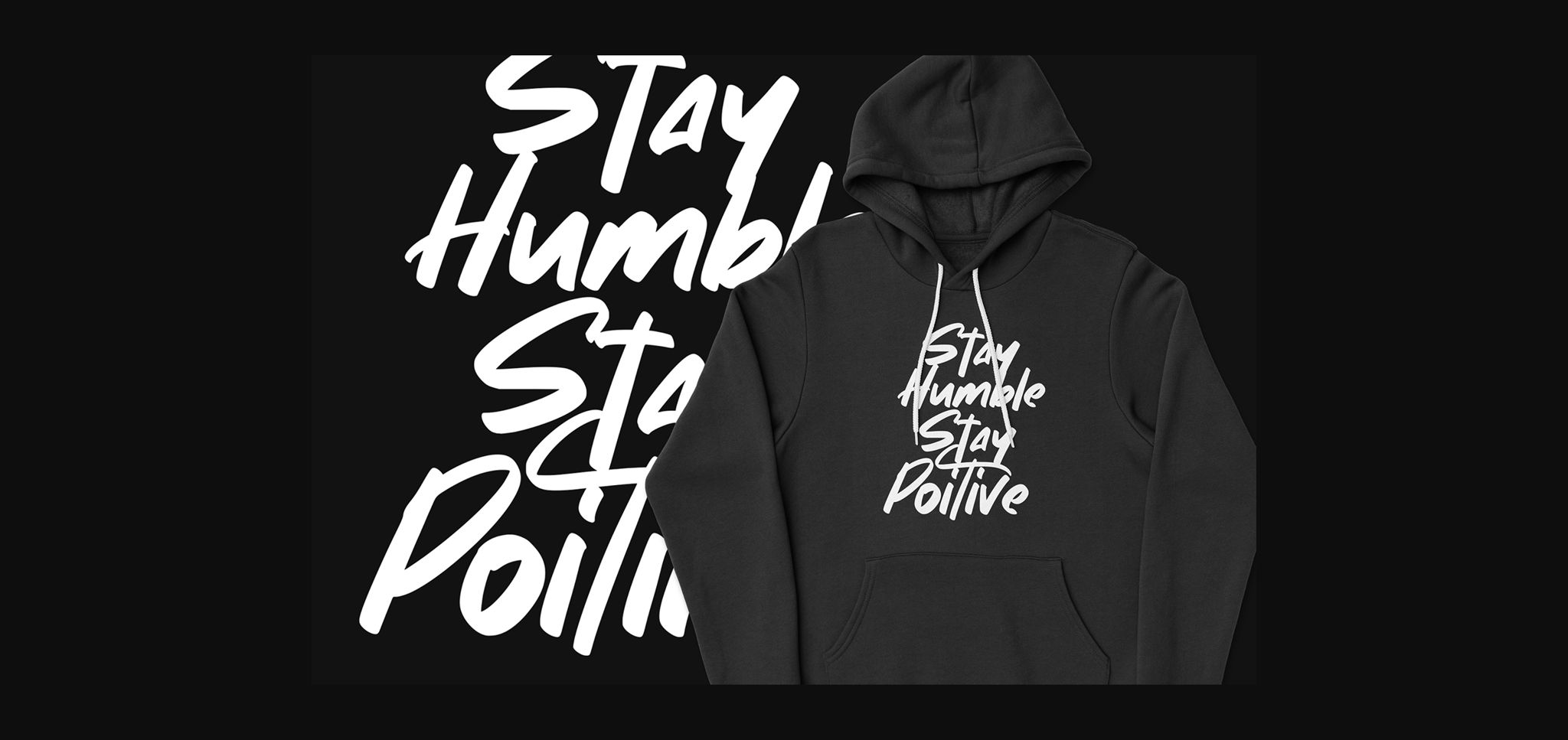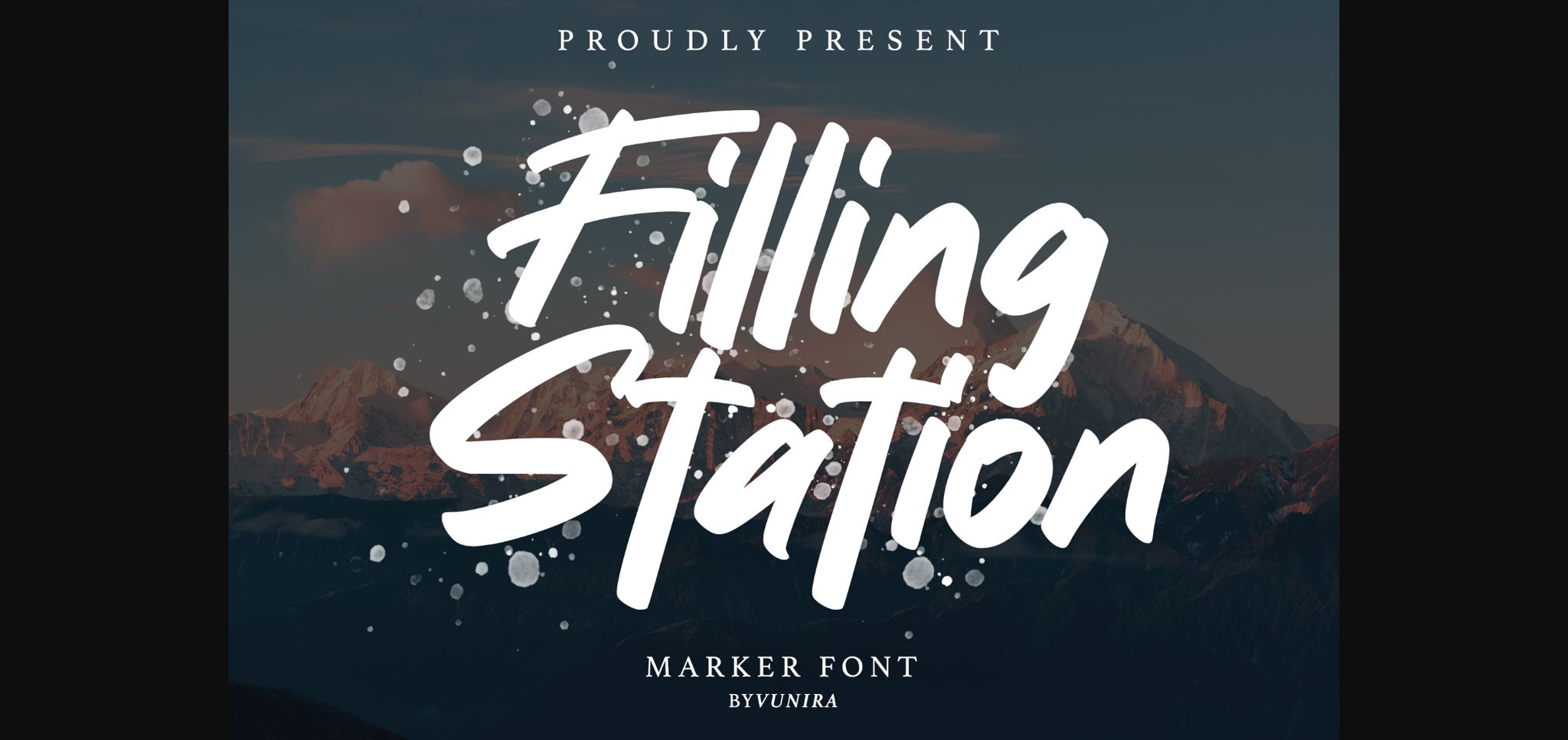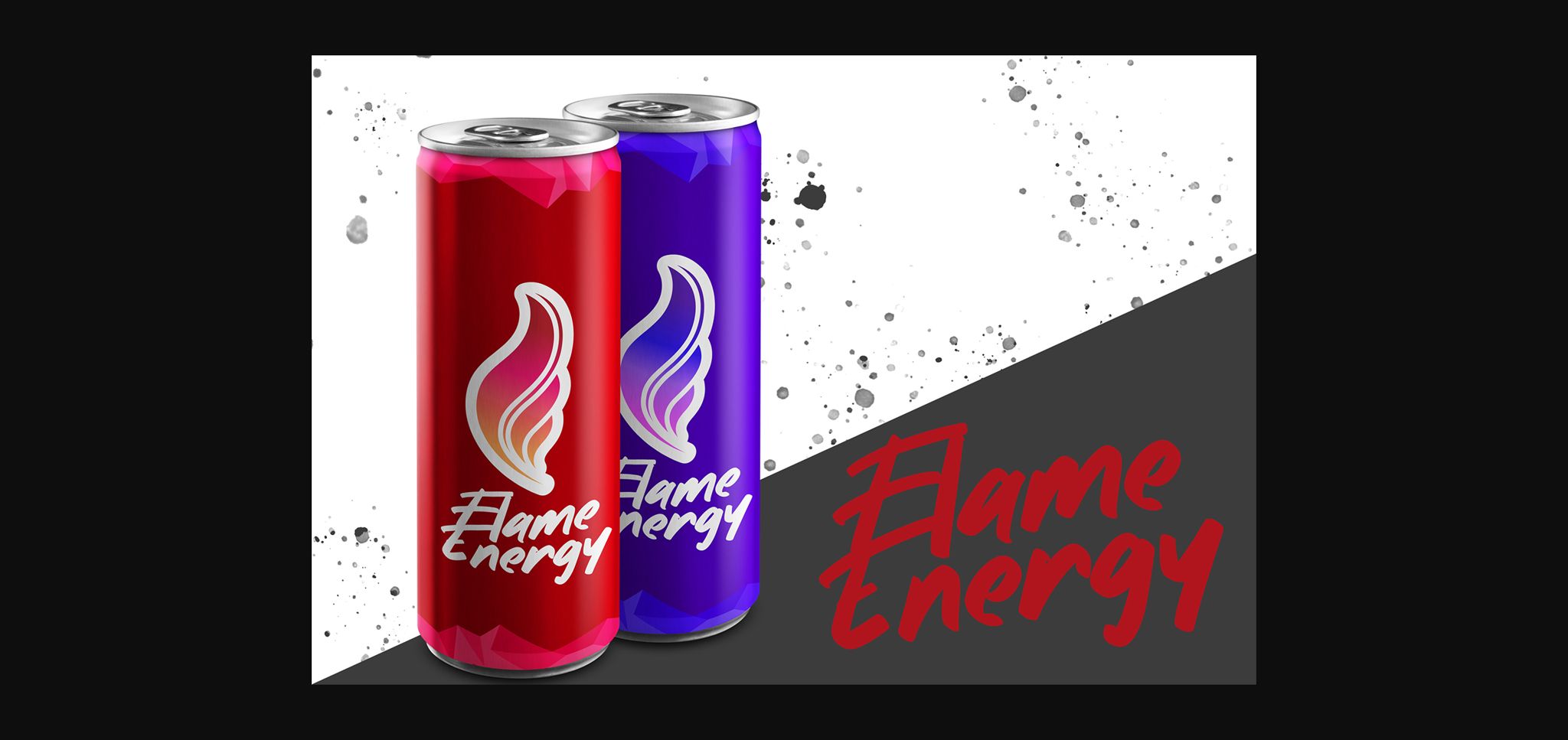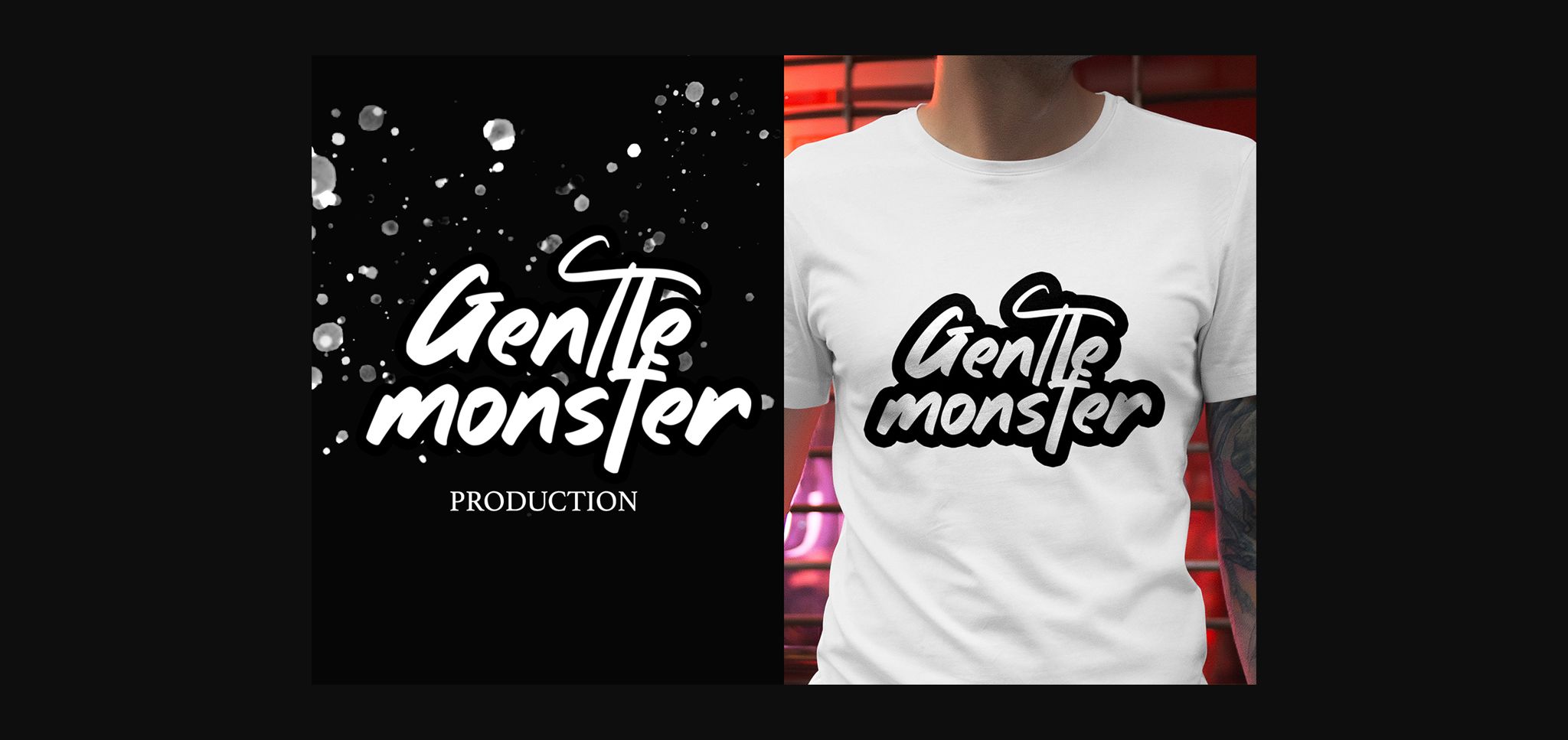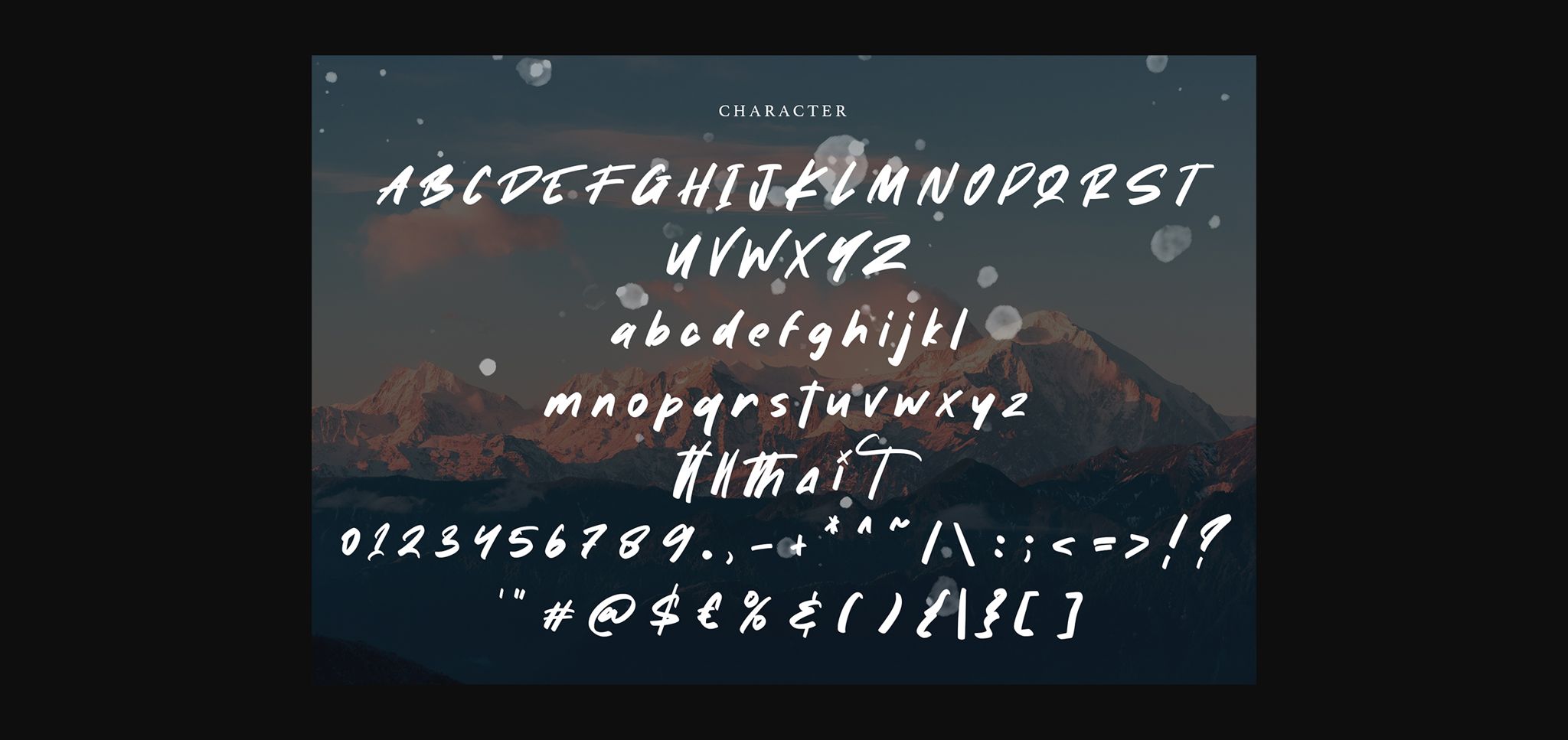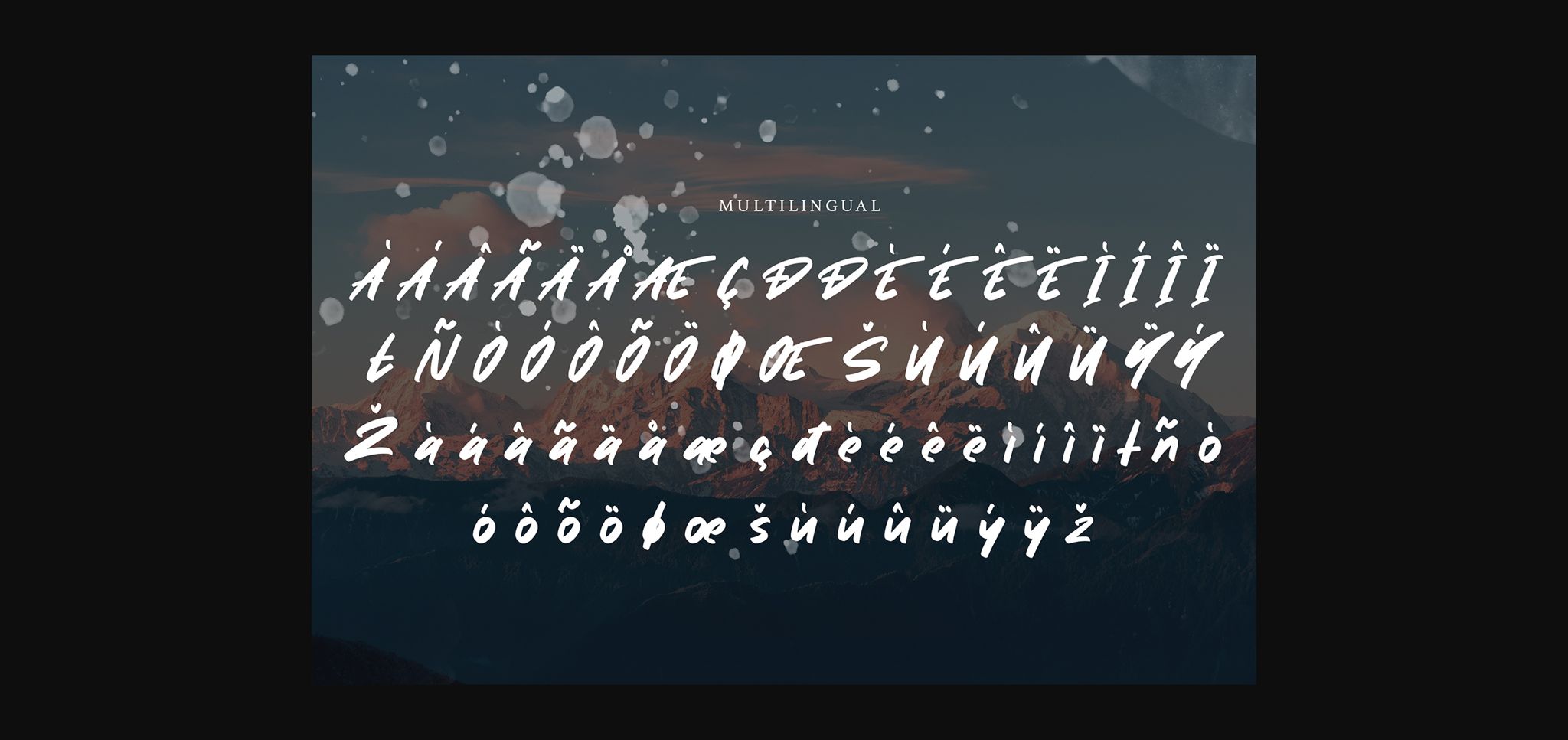
Filling Station Font
Filling Station simplifies elegance into one truly outstanding sans serif font. With its neat and beautiful arrangement of letters, this typeface will look outstanding in both formal and non-formal designs.